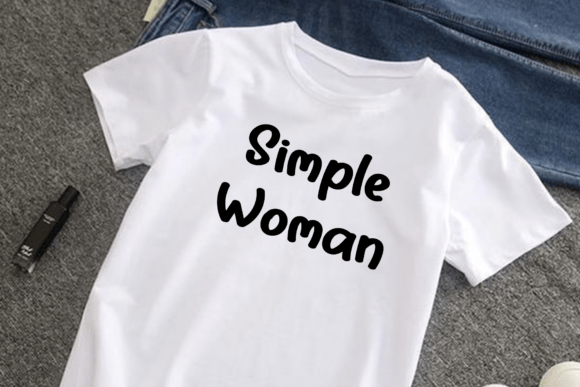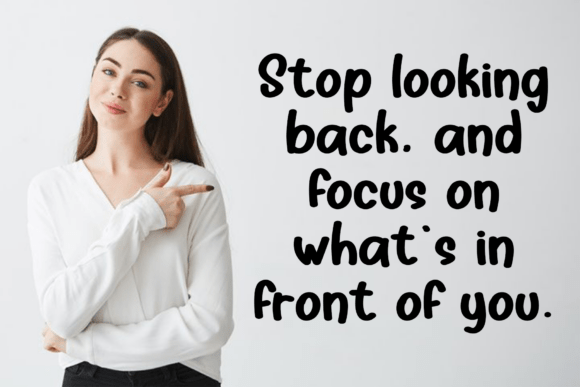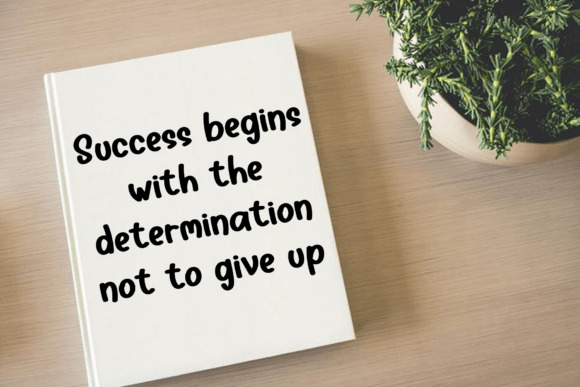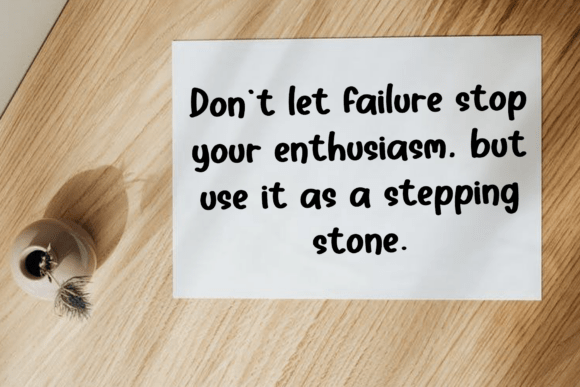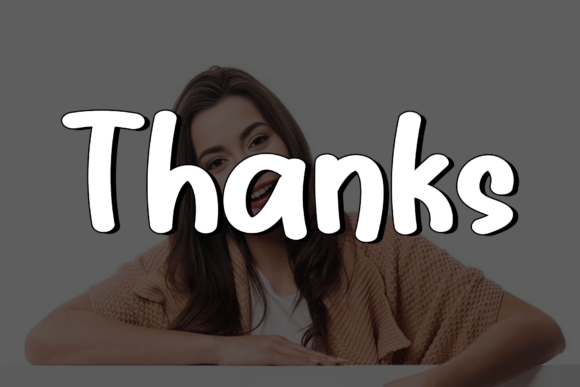
Introducing Good Mood1 Font: The Playful and Bold Display Font
Are you tired of using the same old fonts for your design projects? Look no further than Good Mood1 Font, a playful and bold display font that is sure to bring a smile to your face. With its rounded, chunky letterforms and smooth, balanced strokes, Good Mood1 Font instantly radiates joy and positivity, making it the perfect addition to any design project.
Design and Characteristics
Good Mood1 Font is designed to capture attention with its bubbly shapes and subtle hand-drawn charm. Its strong structure ensures readability while maintaining a whimsical tone, making it perfect for a wide range of design applications. The font’s friendly, approachable personality makes every word feel fun and engaging, adding a lively spirit to any creation.
Versatility and Uses
One of the best things about Good Mood1 Font is its versatility. It can shift seamlessly between playful, casual use and vibrant, professional design contexts. This makes it perfect for a wide range of projects, including:
- Eye-catching headlines and posters
- Children’s projects and educational materials
- Branding and logo design
- Stickers and labels
Good Mood1 Font offers a range of benefits for designers and crafters, including:
- Instant joy and positivity: The font’s playful design instantly radiates joy and positivity, making it perfect for projects that need a friendly and approachable tone.
- Attention-grabbing: The font’s bold and chunky letterforms are designed to capture attention, making it perfect for headlines, posters, and other eye-catching designs.
- Readability: Despite its playful design, Good Mood1 Font ensures readability, making it perfect for projects that need to communicate a message clearly.
- Versatility: The font’s versatility makes it perfect for a wide range of design applications, from playful and casual to vibrant and professional.
Adding Warmth and Energy to Your Projects
Good Mood1 Font is more than just a font – it’s a way to add warmth, energy, and unique character to any creation. With its lively spirit and playful design, it’s the perfect addition to any design project. Whether you’re a designer, crafter, or DIY enthusiast, Good Mood1 Font is sure to bring a smile to your face and inspire your creativity.
In conclusion, Good Mood1 Font is a playful and bold display font that is sure to bring joy and positivity to any design project. With its rounded, chunky letterforms and smooth, balanced strokes, it’s the perfect addition to any design project. Its versatility, attention-grabbing design, and readability make it perfect for a wide range of applications, from playful and casual to vibrant and professional. So why not give Good Mood1 Font a try and add a little warmth and energy to your next project?